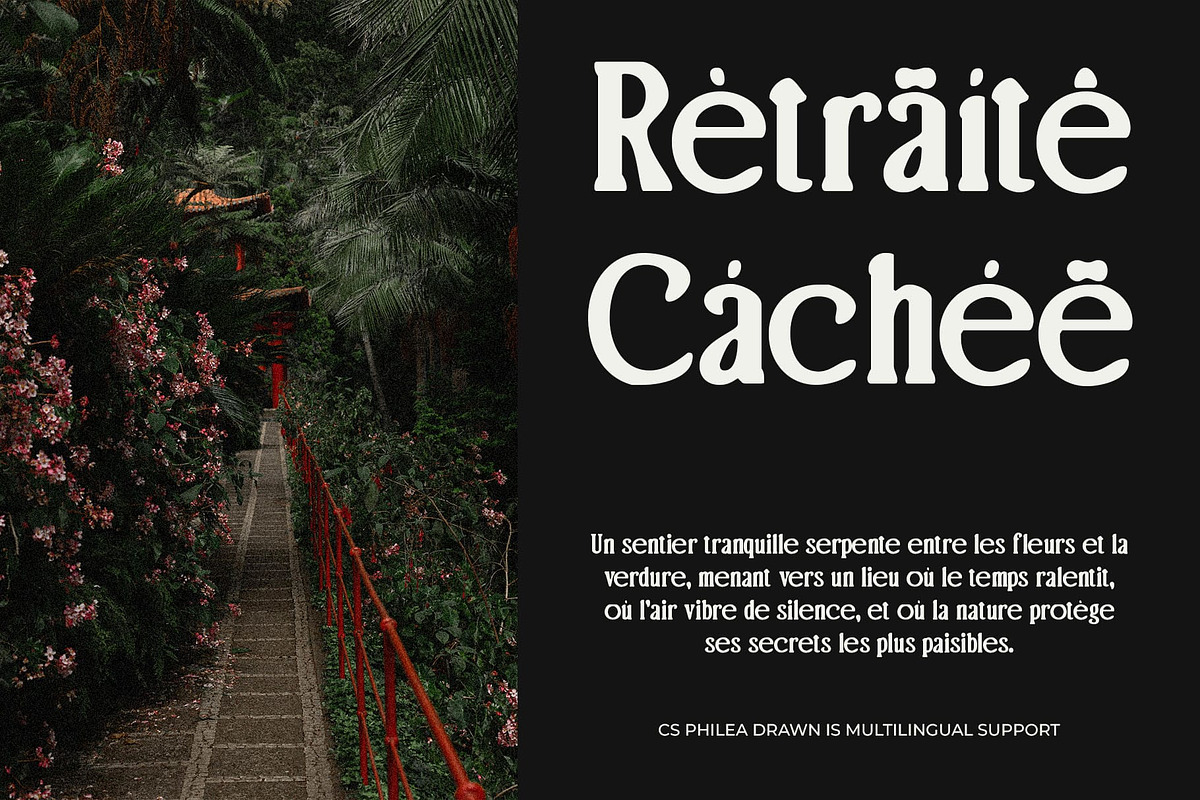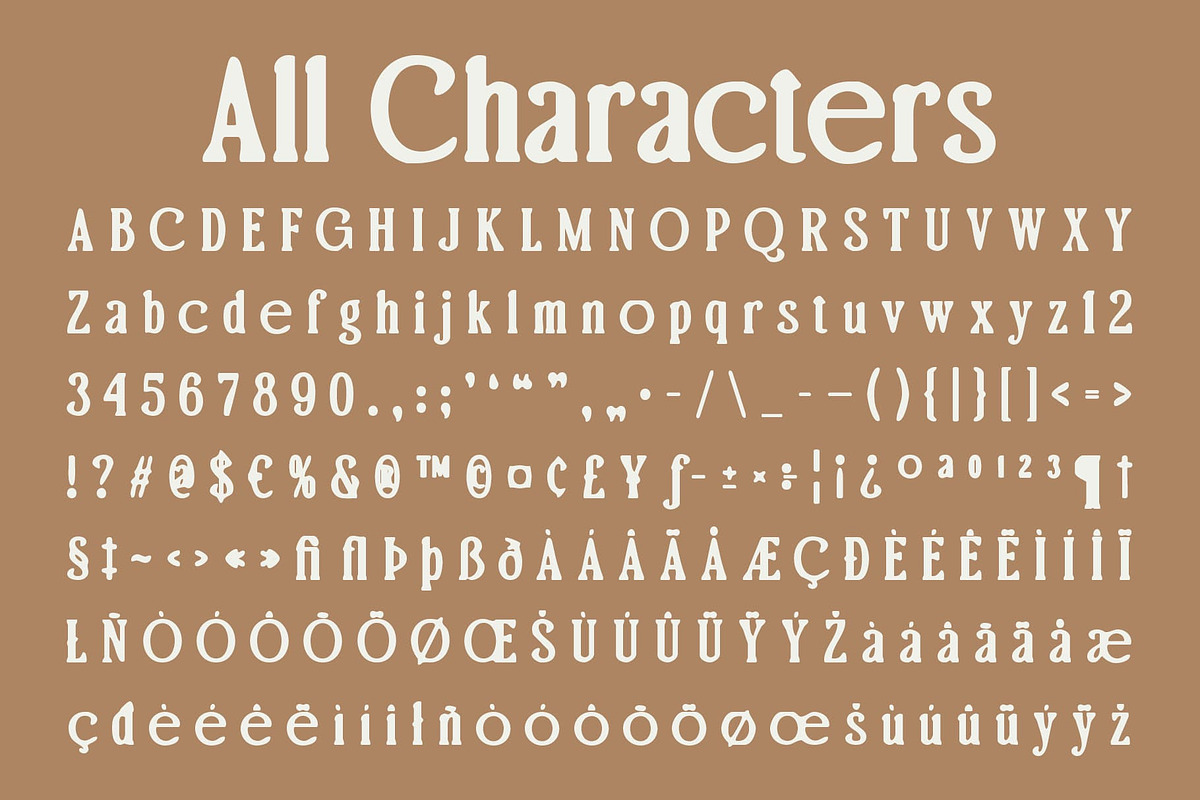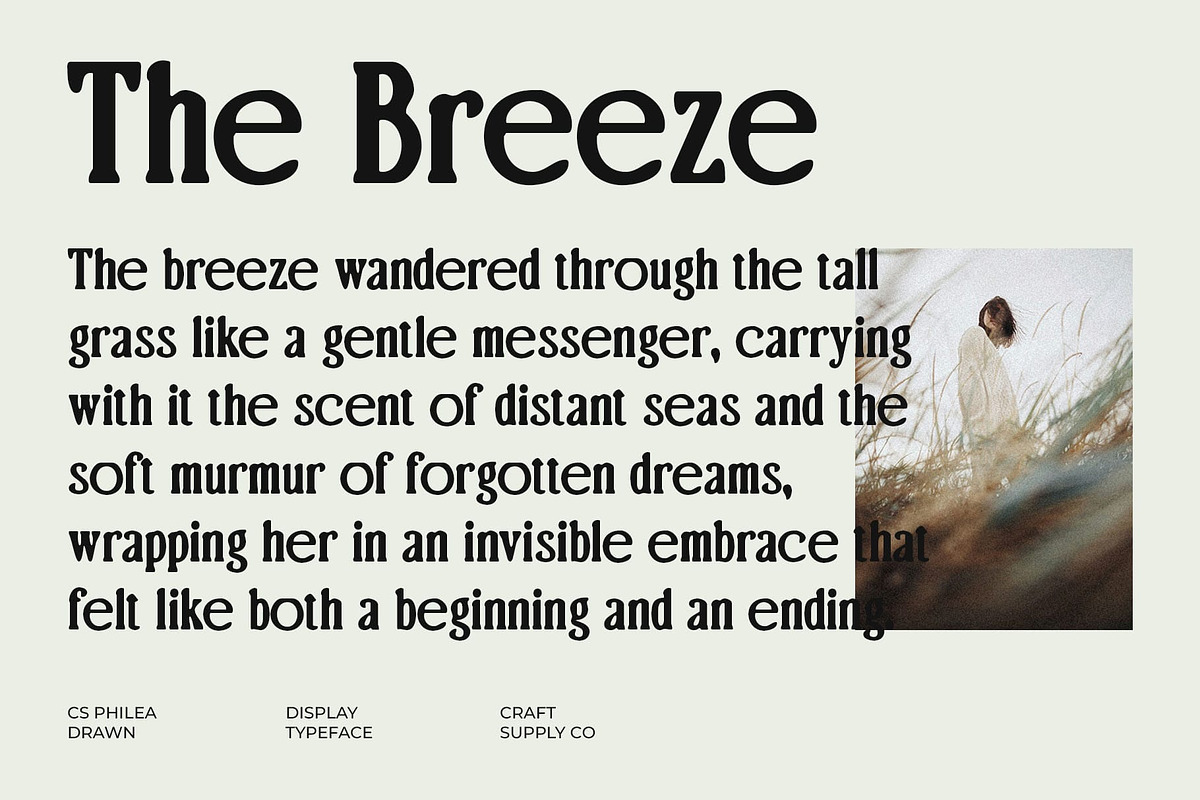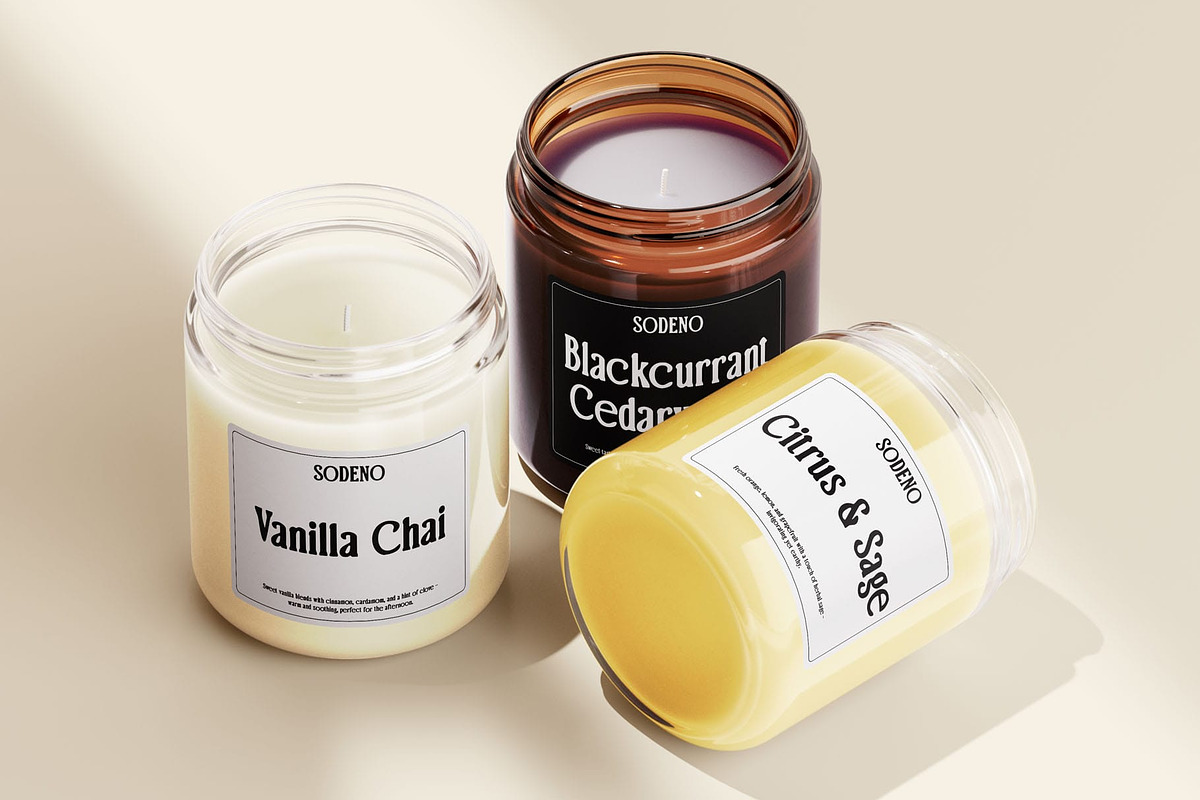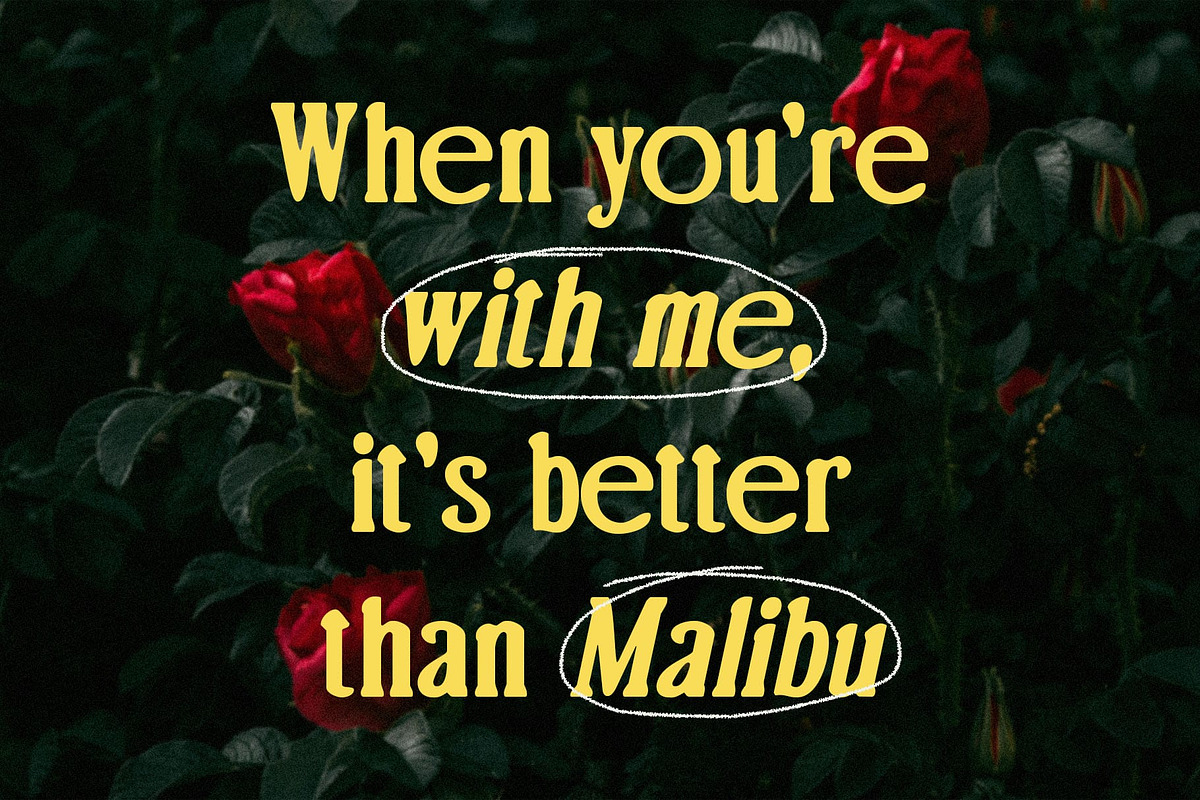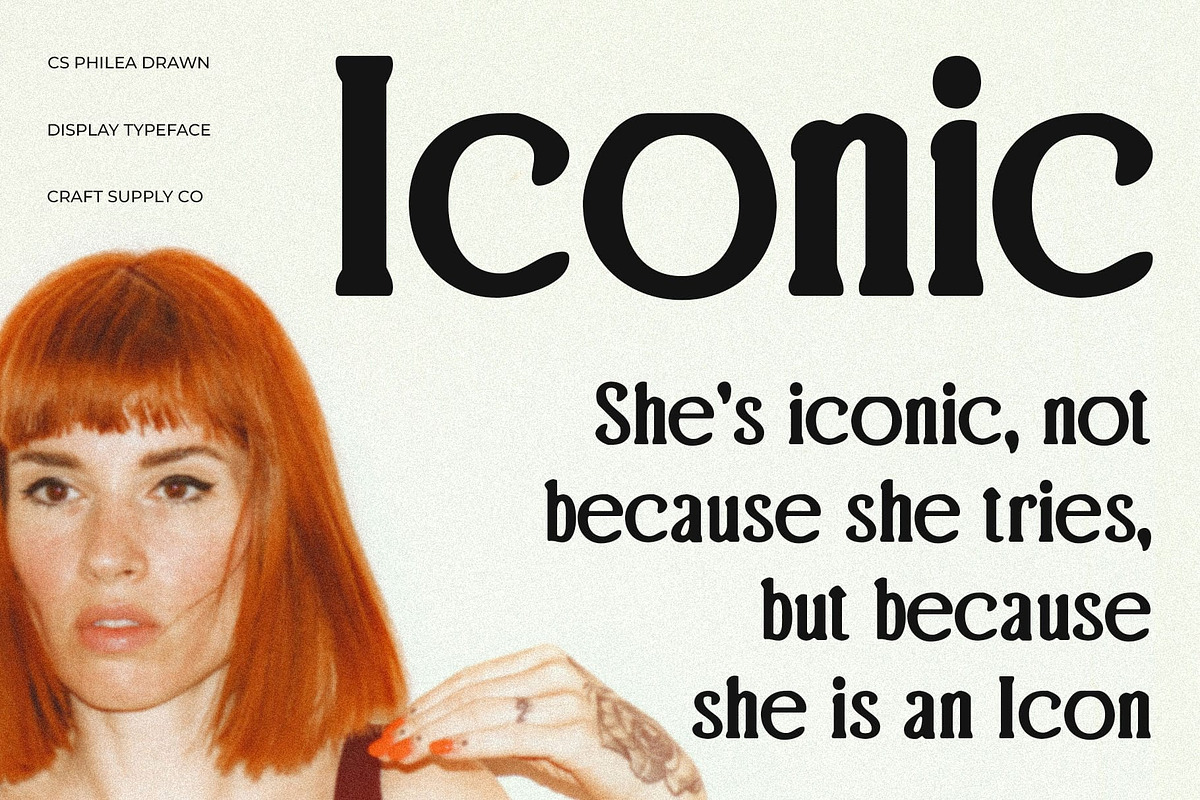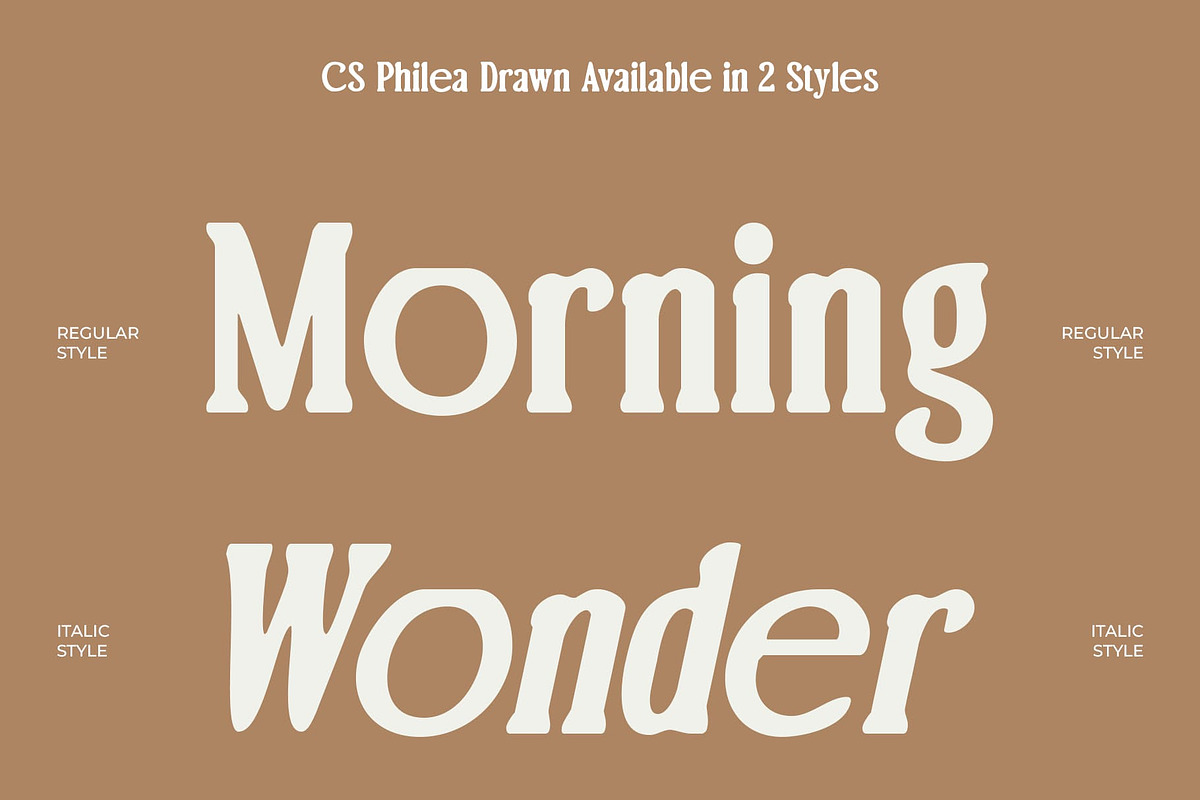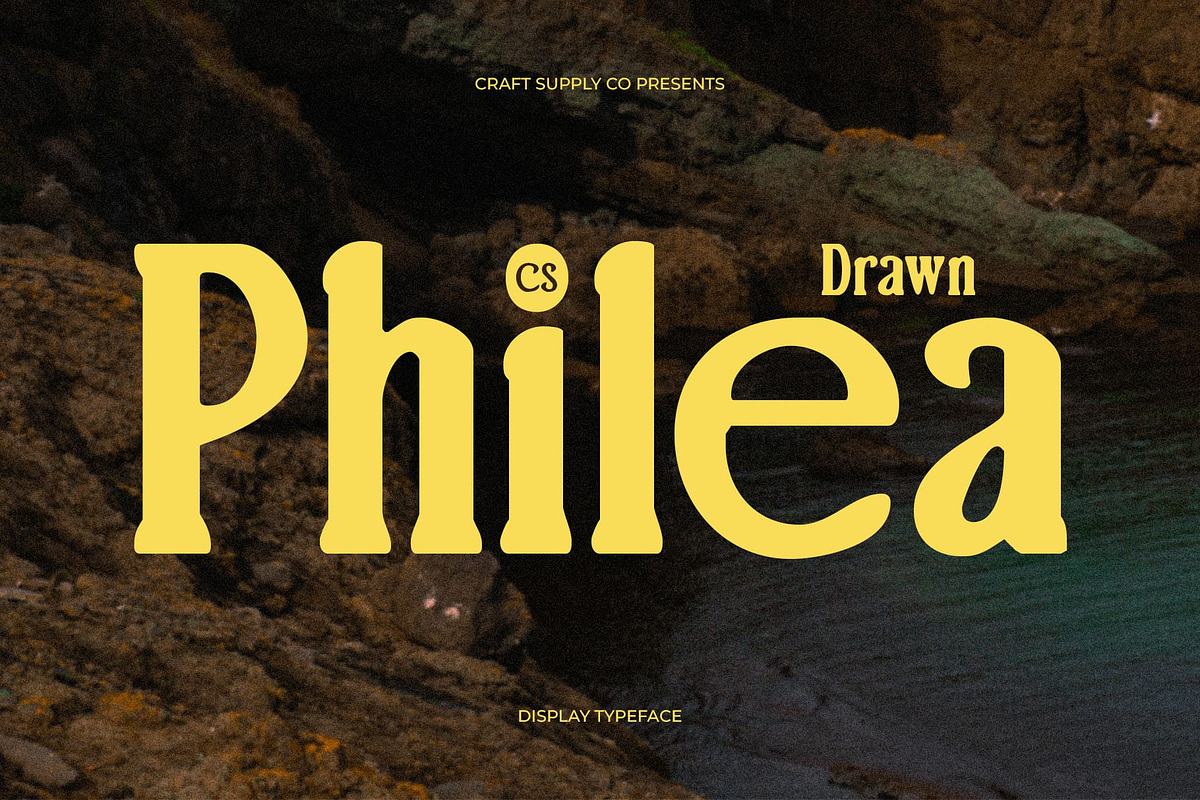
CS Philea Drawn
CS Philea Drawn: Modern Elegance with Handmade Charm
Modern Serif Font with Drawn Effect CS Philea Drawn is a modern serif font defined by its long serif shapes and condensed proportions. The subtle drawn effect introduces a handcrafted texture that makes each character feel distinctive and full of personality, turning simple text into something more artistic.
Condensed Style for Refined Impact The condensed form gives this font a graceful, space-saving quality without sacrificing legibility. Its elongated letterforms convey sophistication and harmony, making it a versatile choice for designs that need to look polished yet creative. From bold headlines to refined editorial layouts, this style delivers a lasting impact.
Handmade Texture for Unique Expression What makes this clean and neat font stand out is its artistic handmade quality. The drawn texture softens the precision of its modern serif structure, offering a human touch that feels authentic and expressive. This balance of technical elegance and handcrafted detail makes it perfect for projects seeking both professionalism and artistry.
Perfect for Luxury and Creative Projects This unique and distinctive font shines in luxury branding, fashion editorials, posters, packaging, or any creative project that needs a graceful yet modern feel. Its slender forms and organic drawn finish make it equally effective for high-end designs and expressive visual statements.